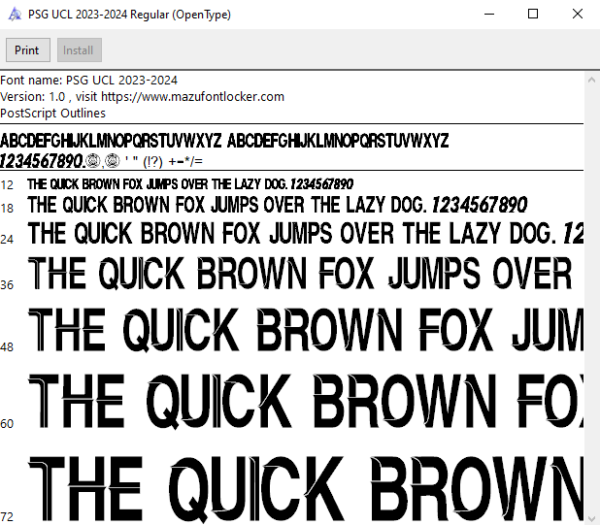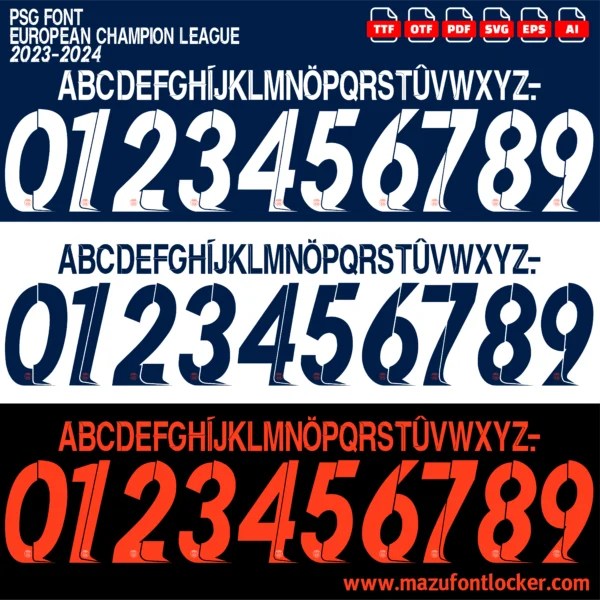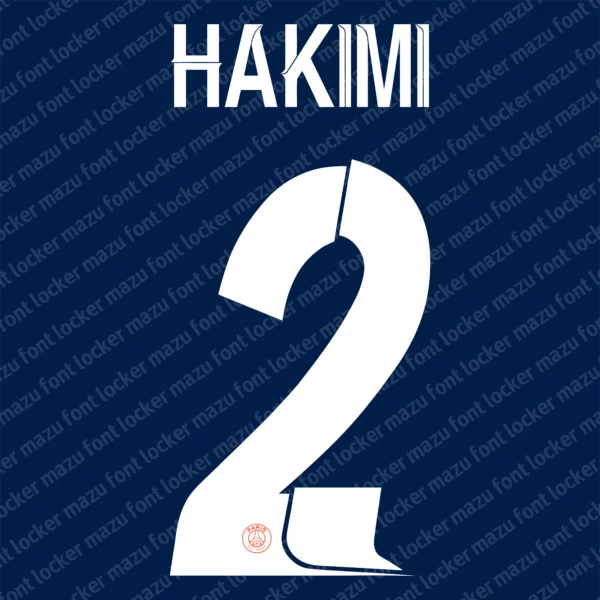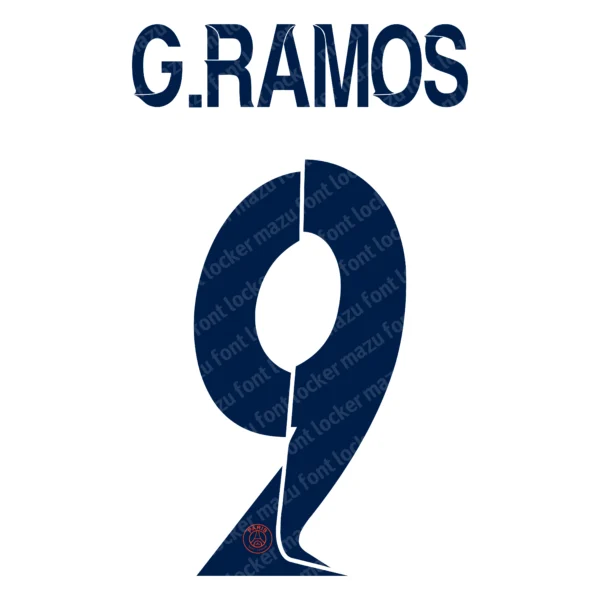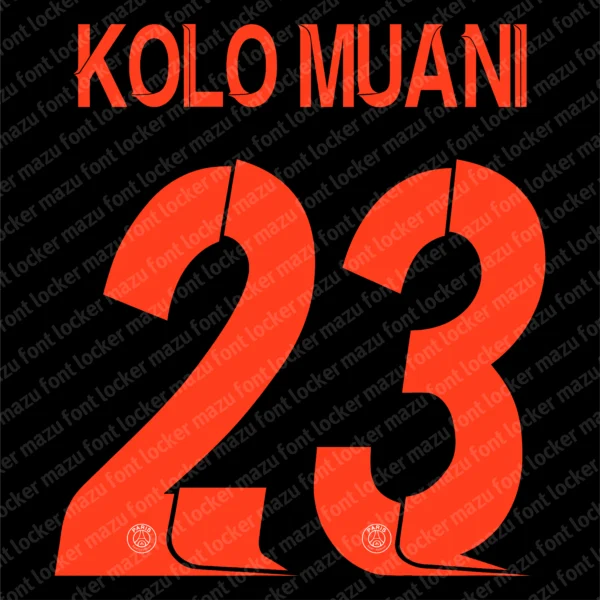
PSG UCL 2023-2024 Font Vector – Epic Parisian Masterpiece
This font captures the commanding, steel-sharp, lightning-strike, and precision-engineered lettering that perfectly embodies PSG’s iconic club identity, proud French & Parisian heritage, never-back-down mentality, and raw football power — delivering unmatched authenticity, premium quality, explosive energy, and elite Ligue 1 & Champions League dominance for professional jersey mockups, dynamic football graphics, premium sports branding, passionate fan creations, and high-end design projects.
PSG UCL 2023-2024 Font Vector – Iconic Navy Blue & Red Typeface
The PSG UCL 2023-2024 Font Vector is a premium typeface that accurately recreates the official match lettering worn by Paris Saint-Germain during the 2023-2024 UEFA Champions League campaign. This high-quality vector font kit captures the bold, clean, and instantly recognizable typography that perfectly complements the club’s iconic navy blue and red identity.
Designed for professional designers, football enthusiasts, and passionate PSG supporters, the PSG UCL 2023-2024 Font Vector delivers exceptional authenticity for creating realistic jersey mockups, football merchandise, social media graphics, match posters, and custom fan artwork. Every character has been carefully recreated to match the powerful and precise visual style of one of Europe’s most prominent football clubs.
This font stands out thanks to its precise vector construction and authentic club styling. Every letter and numeral has been meticulously recreated to match the official shirt lettering used throughout the 2023-2024 UEFA Champions League and domestic campaigns. Whether you’re producing professional kit templates or creating eye-catching football content, the PSG UCL 2023-2024 Font Vector delivers a genuine match-ready appearance.
The lettering featured in the PSG UCL 2023-2024 Font Vector combines clean geometric lines with powerful modern proportions. The result is a premium and highly readable typeface that reflects Paris Saint-Germain’s ambition, Parisian flair, and passionate global fanbase in European football.
• Complete uppercase A–Z alphabet and numbers 0–9 in authentic PSG UCL 2023-2024 style
PSG UCL 2023-2024 Season
The 2023-2024 UEFA Champions League campaign was another high-profile chapter for Paris Saint-Germain as they competed on the European stage with their signature ambition and determination. Wearing their iconic navy blue and red colors, the club created memorable moments for their loyal supporters.